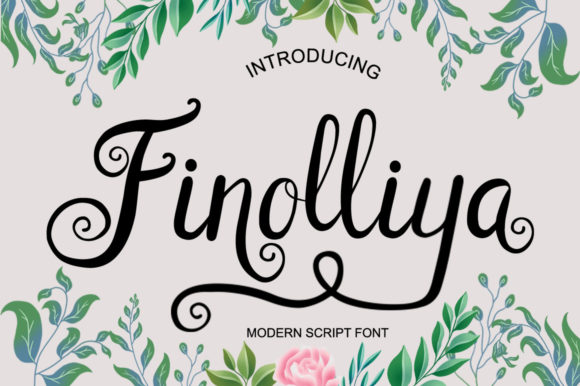
Behold, the cinematic masterpiece, Finolliya, a script font that dances across the screen like a silver ribbon, capturing the essence of elegance and grandeur. With its refined curves and timeless beauty, Finolliya is the perfect font for creating captivating logos that leave a lasting impression, branding that oozes sophistication, and invitations that evoke a sense of enchantment.
Immerse yourself in the world of Finolliya, where stationery transforms into delicate works of art, wedding designs blossom with romance, and social media posts radiate with an aura of luxury. Each letter, a brushstroke of brilliance, weaves a tale of passion, intrigue, and timeless allure.
Unleash the power of Finolliya's PUA encoding, a magical key that unlocks a treasure trove of glyphs and ligatures, empowering you to craft designs that captivate and enchant. With Finolliya at your fingertips, the ordinary becomes extraordinary, and the mundane transforms into a cinematic masterpiece.
Whether you're a seasoned designer seeking to elevate your creations or a passionate hobbyist yearning to add a touch of cinematic magic to your projects, Finolliya is the font that will ignite your imagination and bring your visions to life. So, embrace the elegance, the grandeur, and the cinematic allure of Finolliya, and embark on a creative journey like no other.